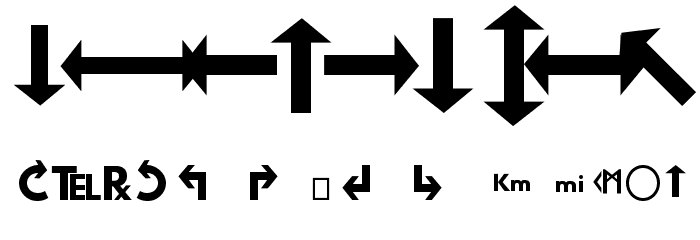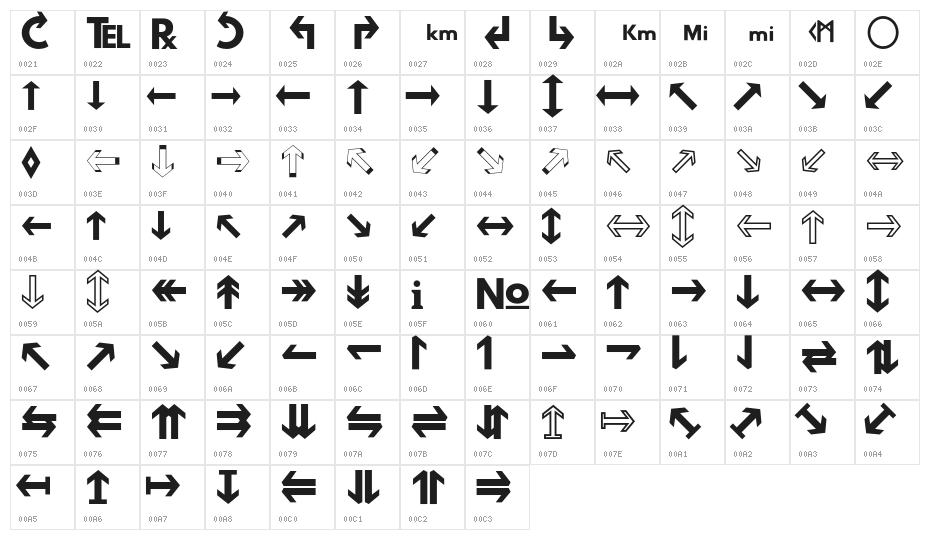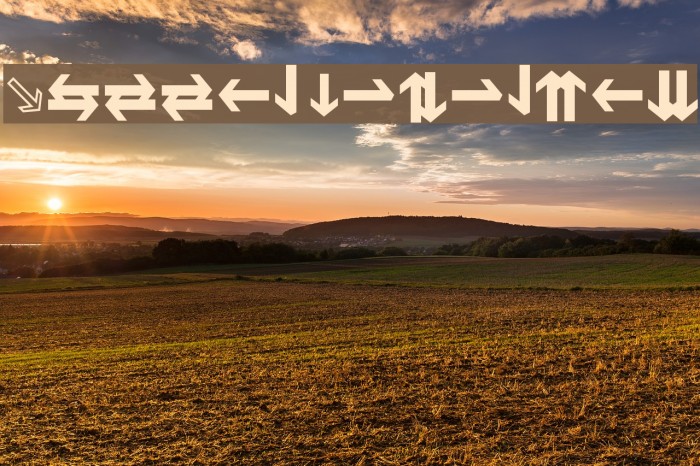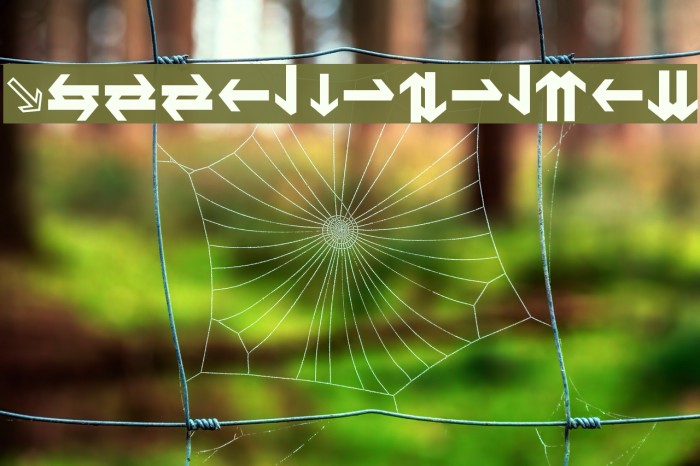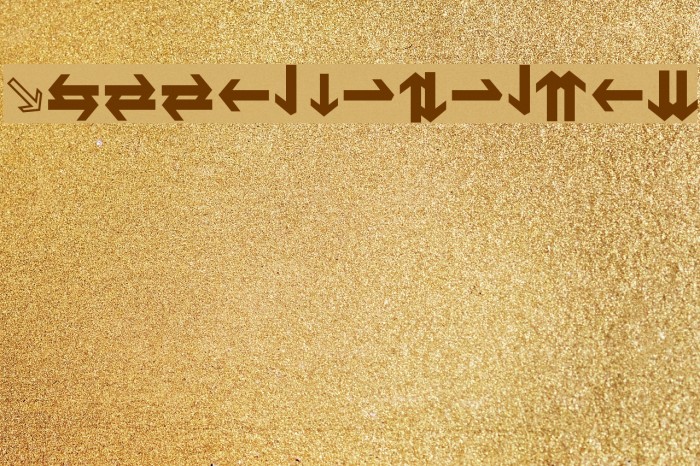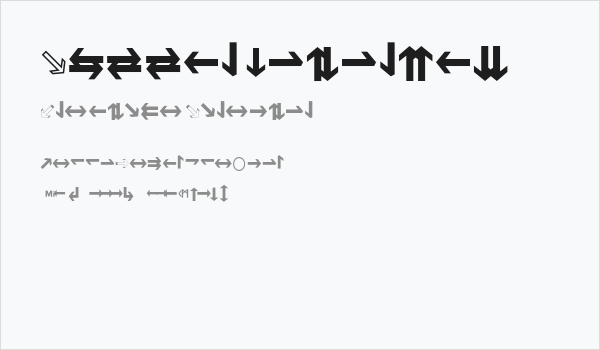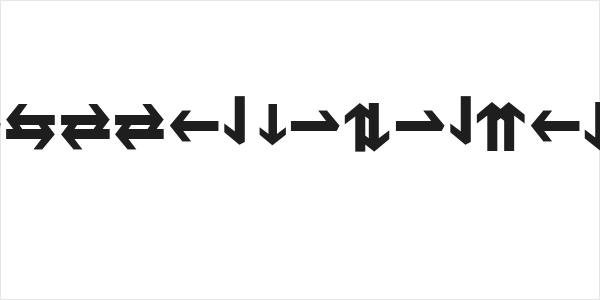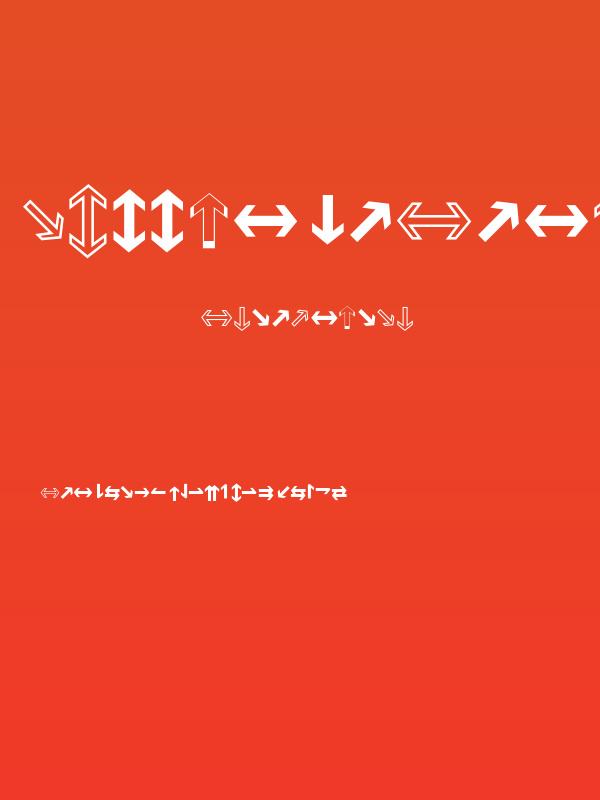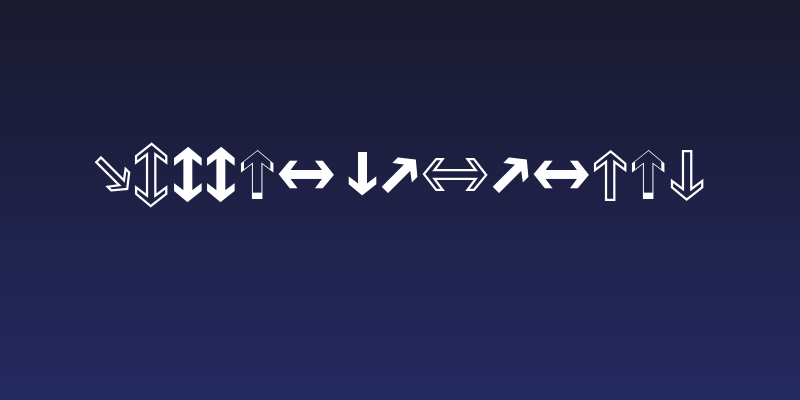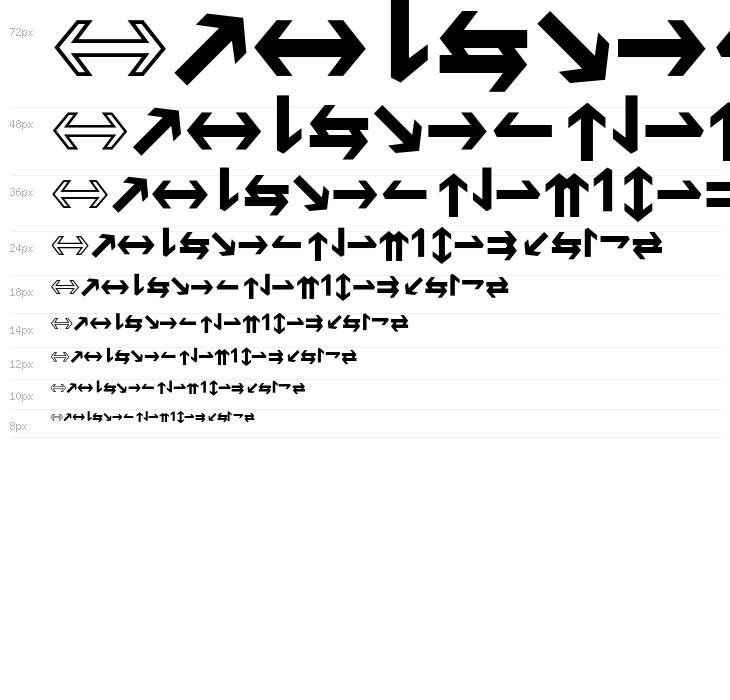
Hussar Motorway Font
Hussar Motorway Description
This font features a unique and bold design with arrow-like elements integrated into each character, creating a dynamic and directional aesthetic. The characters are constructed with sharp angles and geometric shapes, giving them a modern and industrial feel. The font is highly stylized, with each letter incorporating arrowheads or directional cues, making it ideal for attention-grabbing designs. The overall appearance is striking and unconventional, suitable for projects that require a strong visual impact.
| Use Case | Logos, Headlines, Signage |
| Proposed Projects | Ideal for signage, branding, and poster designs where a directional or dynamic theme is desired. |